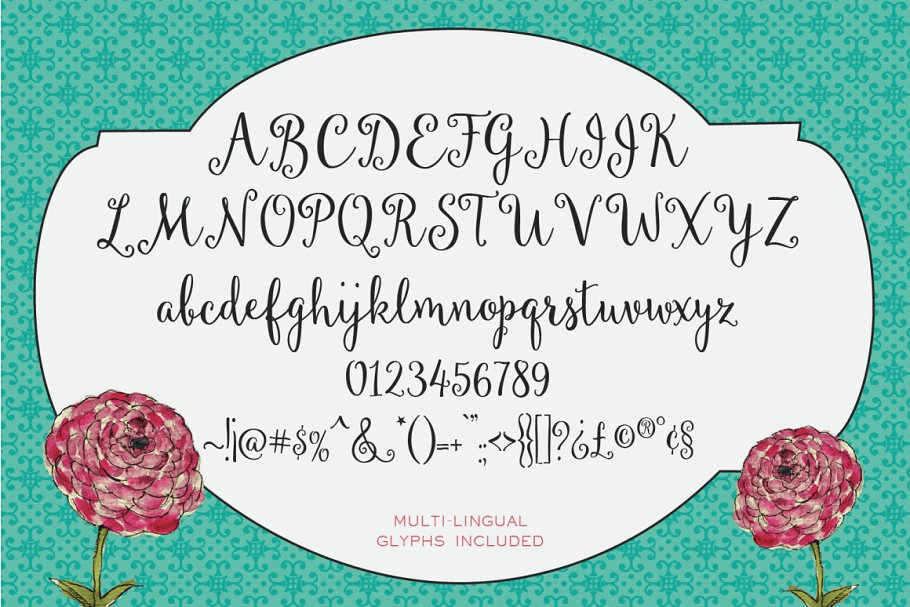
Margherite
Margherite is a sweet feminine typeface, hand-drawn characters dance decoratively along the baseline. Available for both personal and commercial use. Download and use The Margherite Script for anything and everything.
Including over 200 different hand-drawn characters for a range of languages and dialects.
Margherite script also includes a bonus set of frames which comes ready to use as a font file. Use them to add a bit of sophistication to any of your designs.